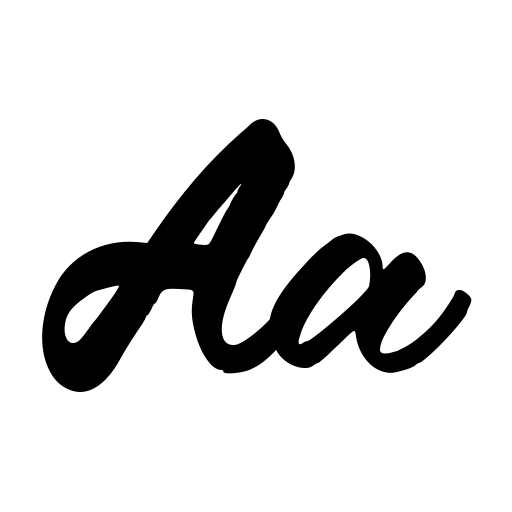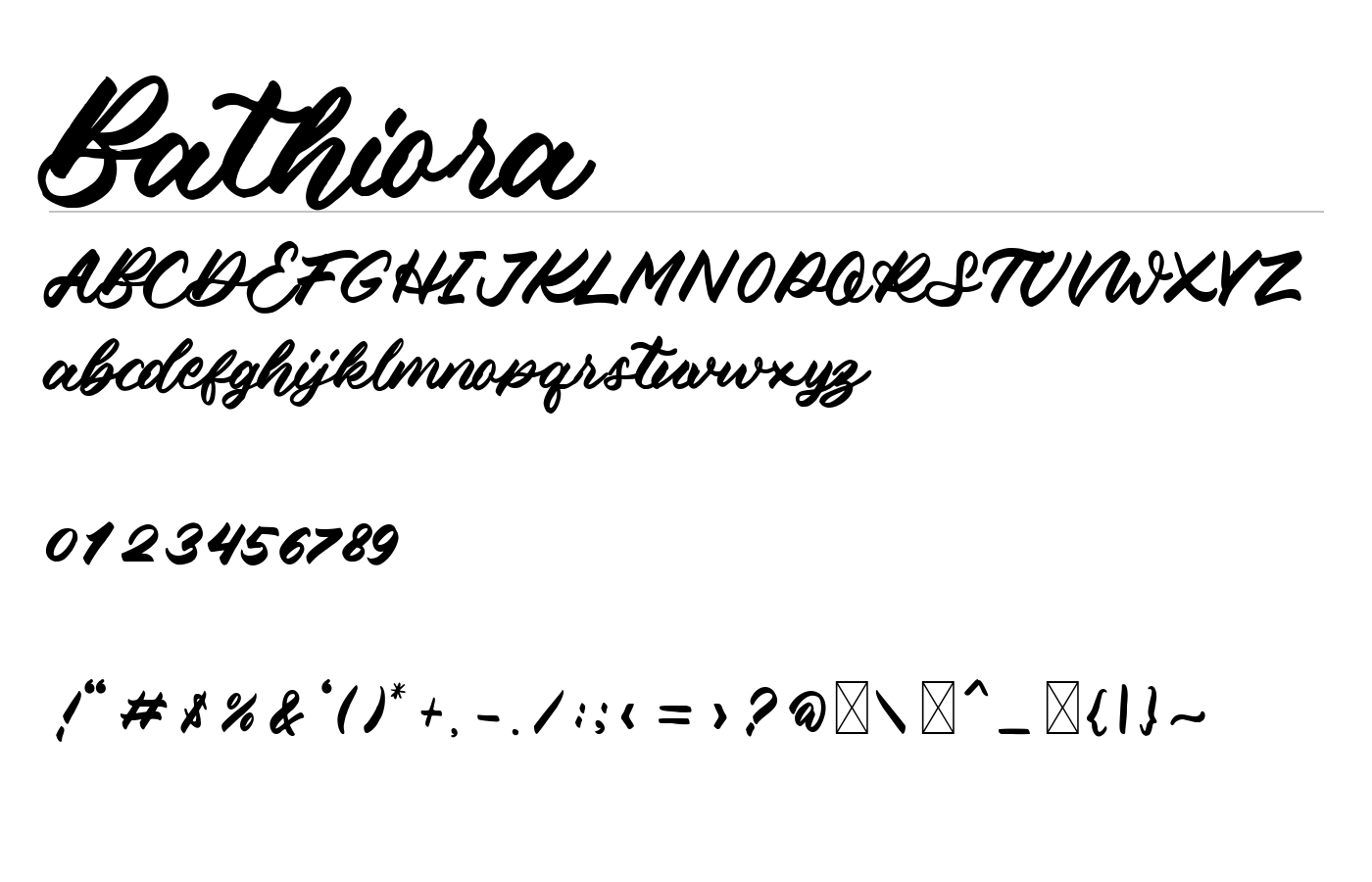
Bathiora is a lively and elegant script font characterized by its smooth, flowing strokes and balanced contrast between thick and thin lines. Its casual, handwritten style exudes warmth and friendliness, making it ideal for creative projects, invitations, branding, and packaging that seek a personal, approachable touch. With its clear letterforms and stylish flair, Bathiora works well for headlines and logos that want to combine sophistication with a playful, modern vibe.
Bathiora Font
About Bathiora Font
| Font family | Bathiora Font |